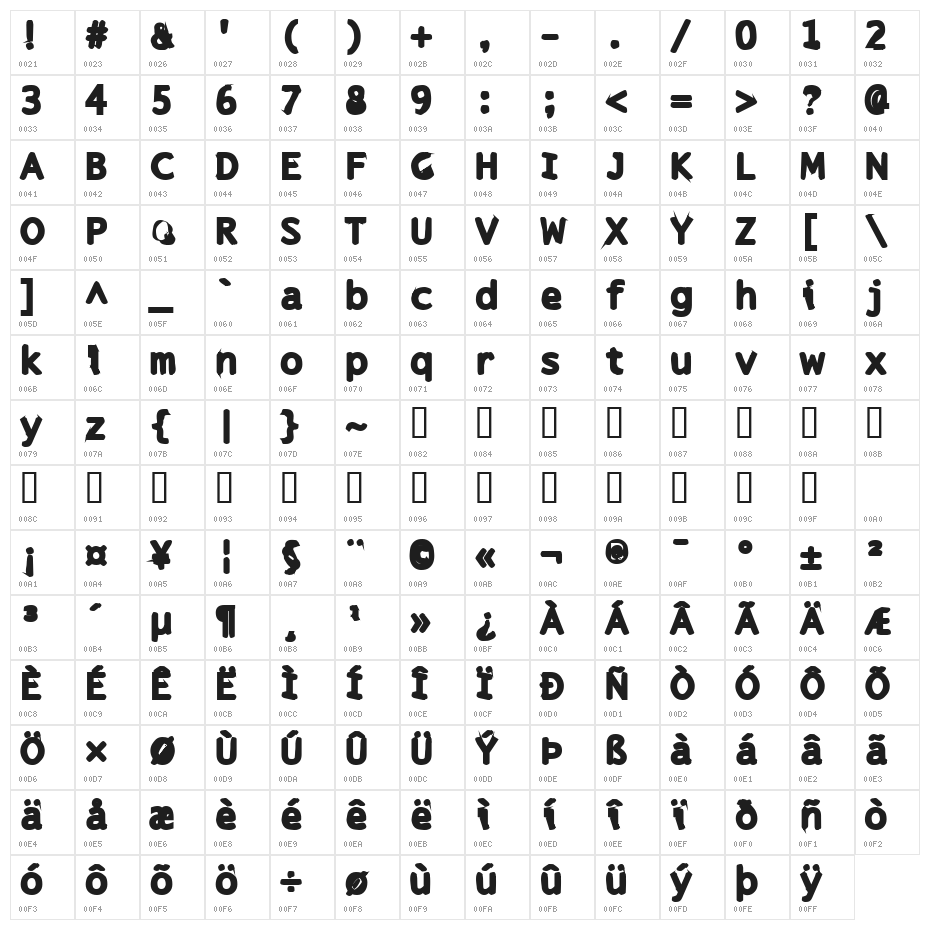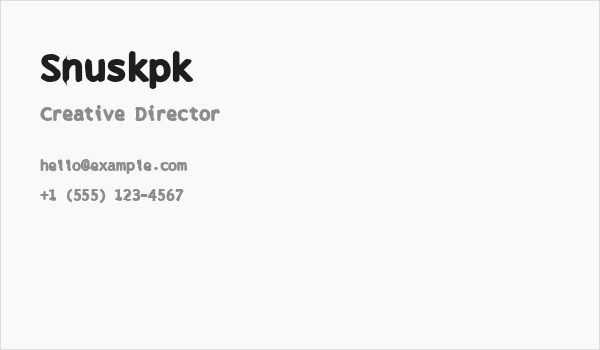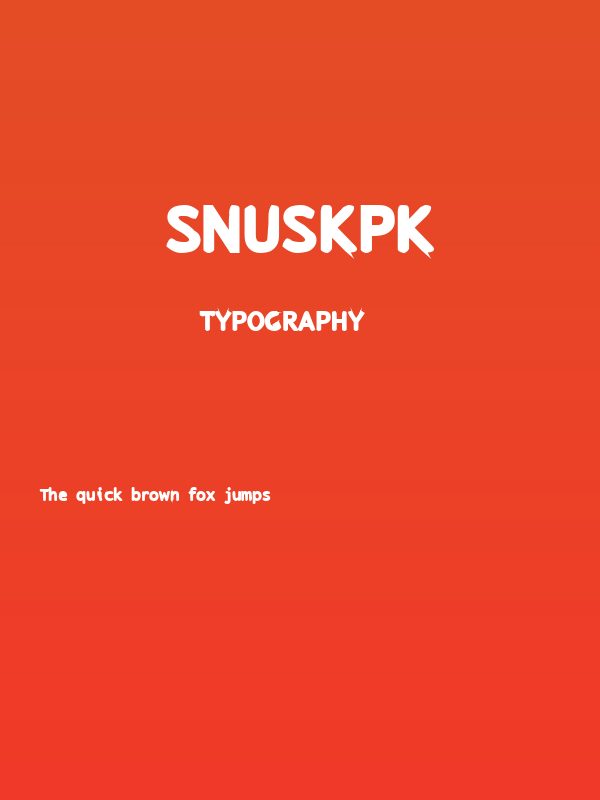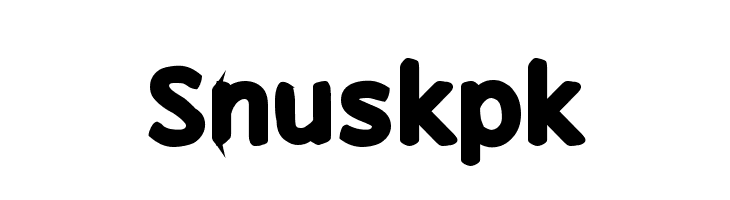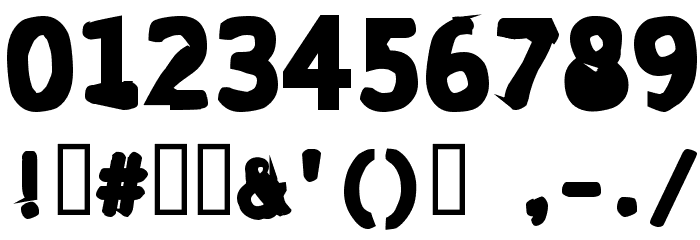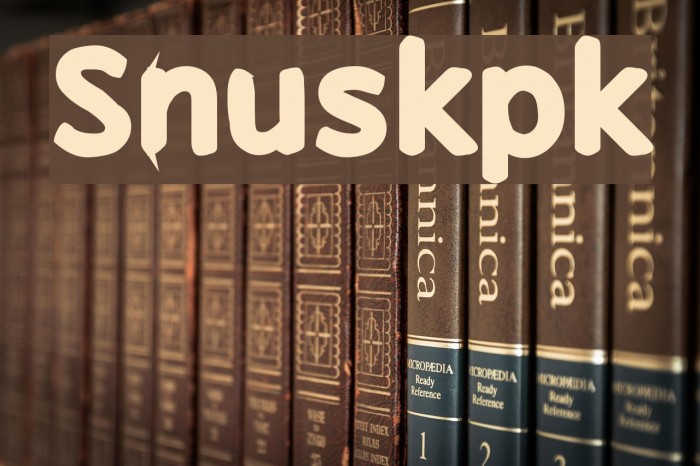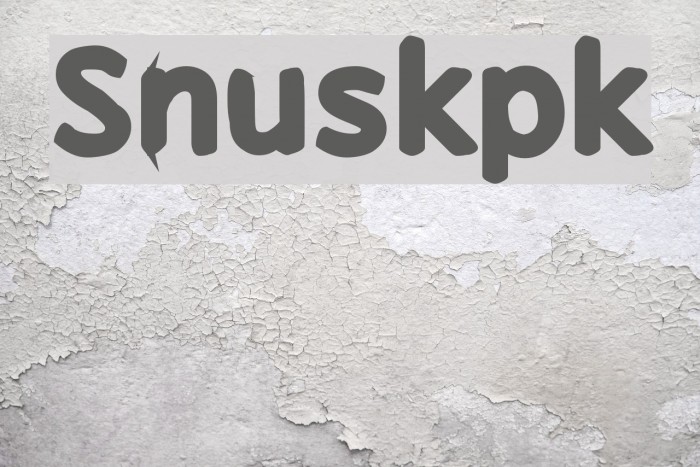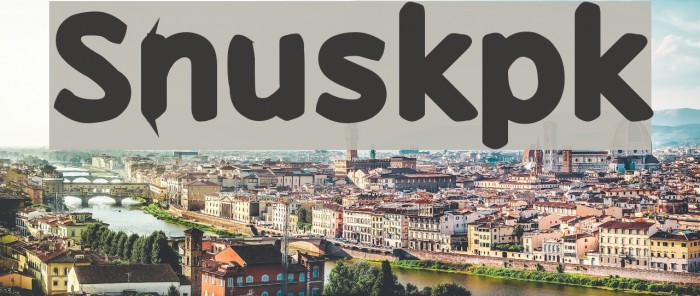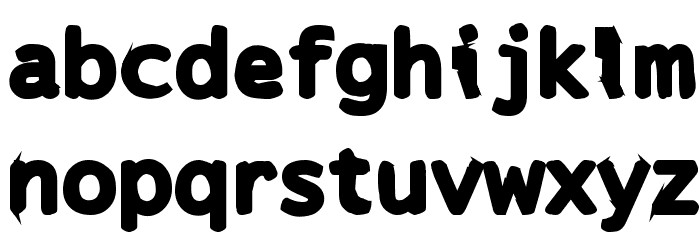
Snuskpk Font
Snuskpk Description
This font features a bold and playful design with a unique, jagged edge style that gives each character a dynamic and energetic appearance. The letters are thick and robust, with irregular cuts and angles that create a sense of movement and excitement. This distinctive style is consistent across both uppercase and lowercase letters, as well as numbers and special characters. The font's boldness and quirky design make it stand out, making it ideal for projects that require a strong visual impact.
| Proposed Projects | Perfect for posters, event flyers, children's book covers, and branding materials that require a fun and energetic vibe. |